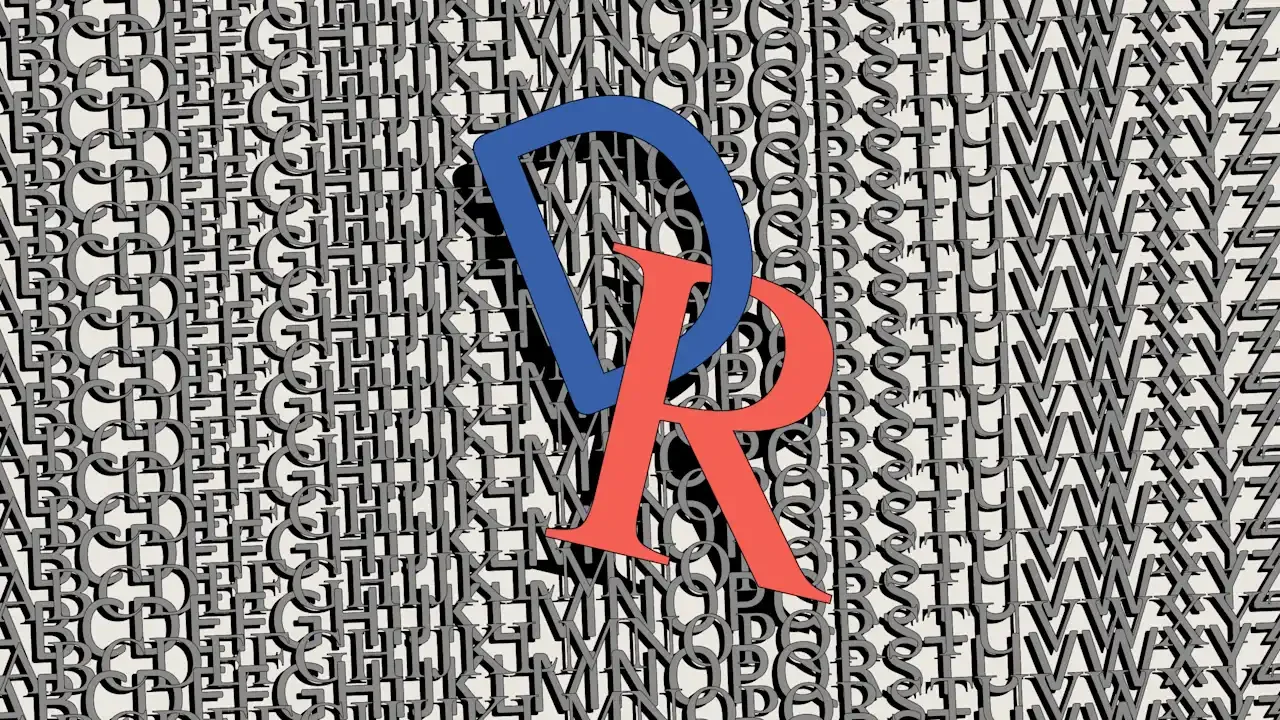
There’s no such thing as a Republican font
Last week, two fonts became the unlikely stars of a political messaging firestorm, after the The President administration replaced Calibri as its official diplomatic font in favor of Times New Roman, claiming that an initial shift to Calibri in 2023 was part of former President Biden’s “DEIA” agenda. The implication was clear: Calibri was framed as a liberal, Democratic font; while Times New Roman took its place as the The President administration’s more conservative choice.
Now, a new study is revealing the major flaw in this logic: font is certainly a political tool, but it’s not inherently partisan.
The study, titled “You’re Just Not My Type: How Attitudes Towards Fonts Explain Affective Polarization,” examines how affective polarization—or the tendency to associate positive feelings with one’s political ingroup, and negative feelings with outgroups—impacts people’s reception of different fonts. The study showed that, across multiple kinds of fonts, respondents were more likely to respond favorably to a font if they were told that it was associated with their own partisan and ideological beliefs.
As the study’s conclusion explains, “People will ‘like’ or ‘dislike’ the typeface in a political logo based on their political views of the candidate it represents.” According to the researchers behind the study, Katherine Haenschen, Shannon Zenner, and Jessica R. Collier, this finding demonstrates that campaign designers shouldn’t feel constrained to only using certain kinds of fonts in their work—because, at the end of the day, constituents vote for candidates, not fonts.
Emotion leads to analytical inconsistency
This new study adds another layer of nuance to several years worth of research on how fonts are perceived in a political context.
In 2019, an initial study coauthored by Haenschen found that individuals do make some instinctive ideological distinctions between typefaces. Serifs, like Times New Roman or Garamond, were rated by study participants as more conservative; while sans serifs such as Helvetica or Arial were rated as more liberal. But that perception isn’t the same as reality.
Based on 2020 data from the Center for American Politics and Design, both Democrats and Republicans are more likely to use sans serif fonts, with 68% of Democratic candidates and 62% of Republican candidates using sans serifs that year, respectively.
Haenschen, Zenner, and Collier’s research offers more context on why that might be the case. Across three survey experiments, the researchers tested the relationship between political identity and emotional reactions to typefaces. They found that, when it comes to fonts in politics, emotions matter more than stylistic preference.
In one condition, participants were shown a font along with a brief description framing it as ideologically associated—like, for example, “Time magazine rates Garamond as the most conservative font.” In another, participants were shown a typeface with a partisan description (which refers to party affiliation), like, “Time magazine rates Century Gothic as the most Democratic font.”  They were then asked to rate how much they liked the font.